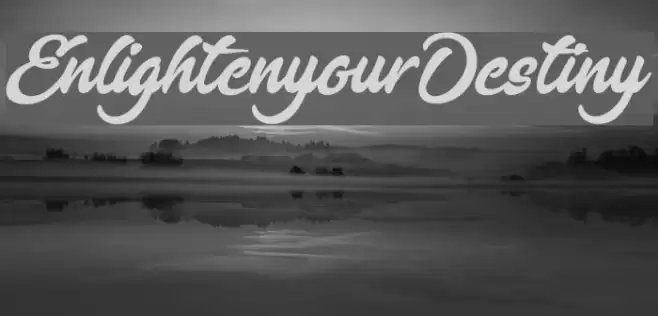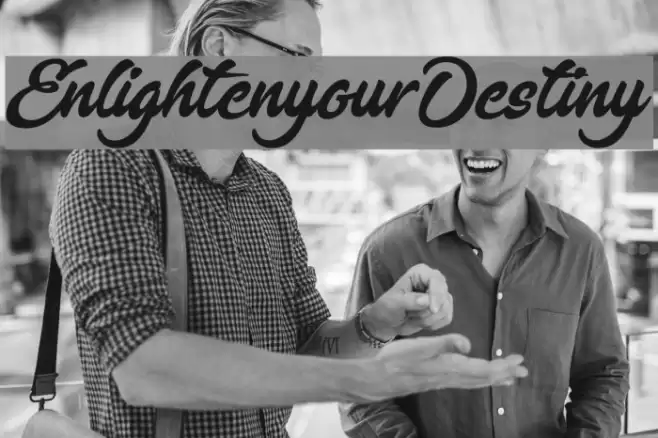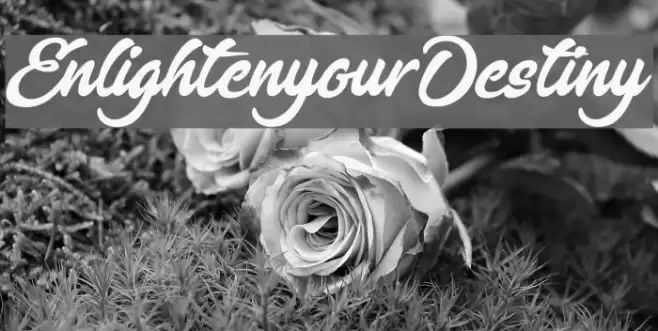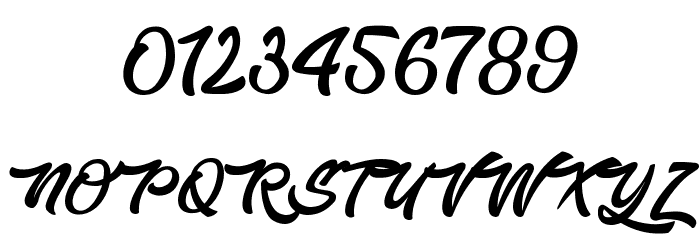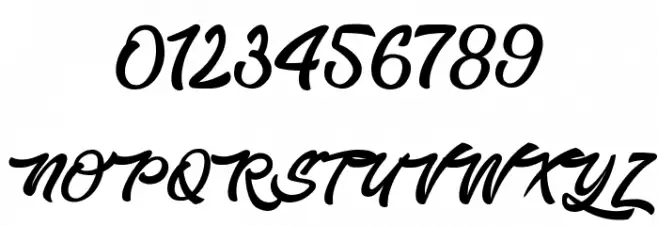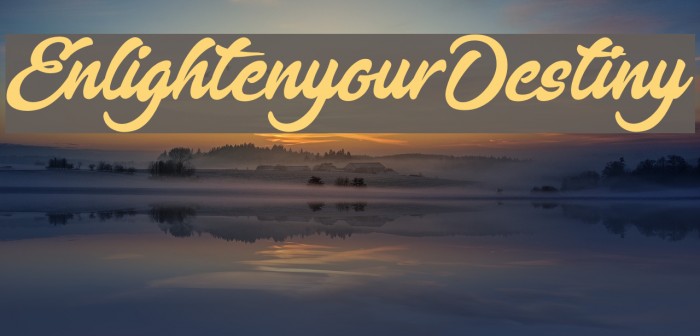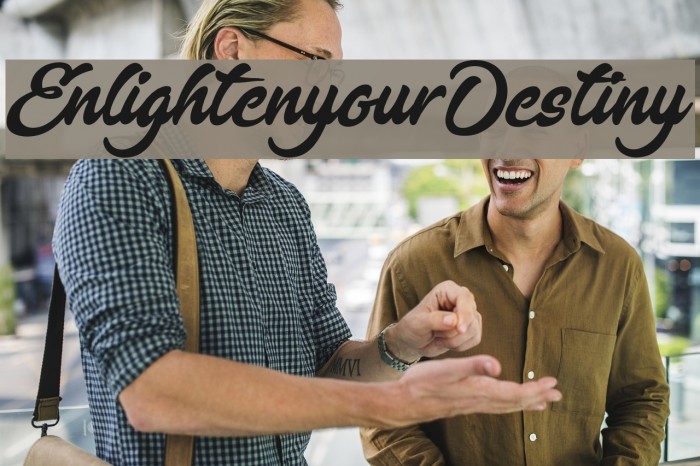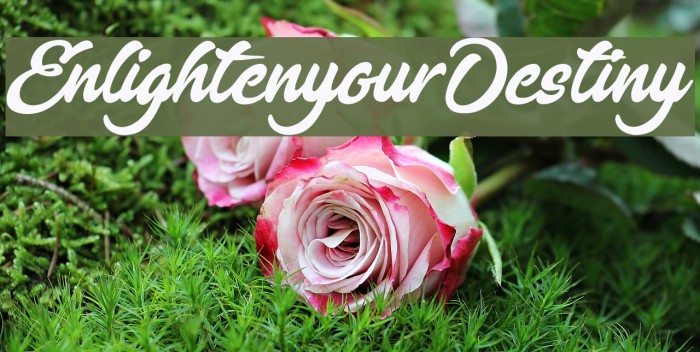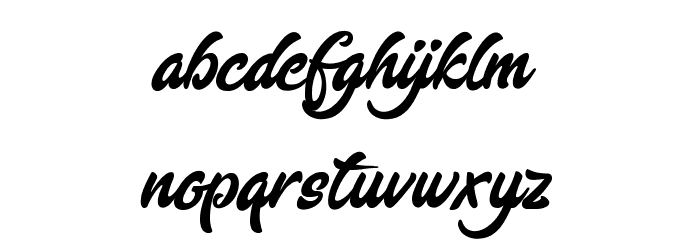
EnlightenyourDestiny Font
EnlightenyourDestiny Description
This font features a bold, flowing script style that exudes elegance and sophistication. The characters are intricately designed with smooth curves and a consistent stroke width, giving it a harmonious and cohesive appearance. The uppercase letters are particularly ornate, with exaggerated flourishes that add a touch of drama. The lowercase letters maintain a more subdued yet stylish look, making them highly readable. The numerals are well-integrated into the overall design, matching the script's fluidity. This font is ideal for projects that require a touch of class and creativity, such as invitations, branding, and decorative headings.
A bold, elegant script font with flowing curves and ornate flourishes from Uncategorized fonts.
- Proposed Projects: Ideal for wedding invitations, luxury branding, decorative headings, and artistic projects.
- Overall Style: Elegant, Decorative
- Use Case: Headlines, Logos, Invitations